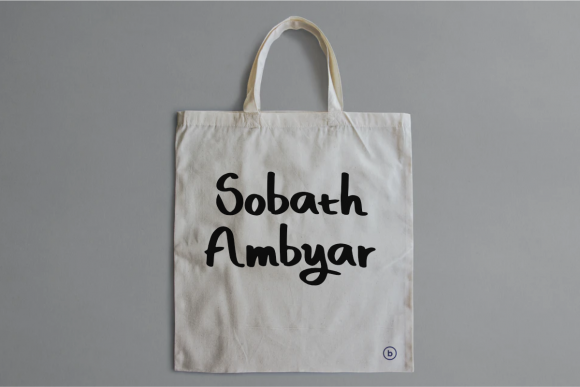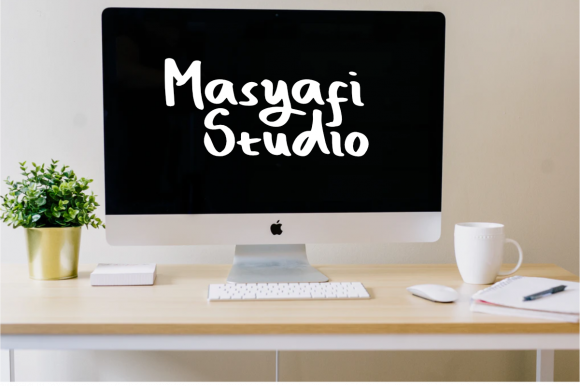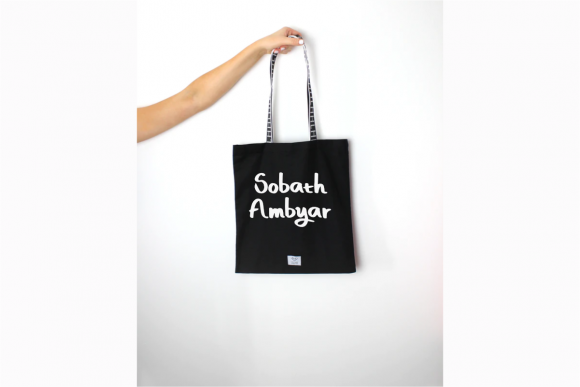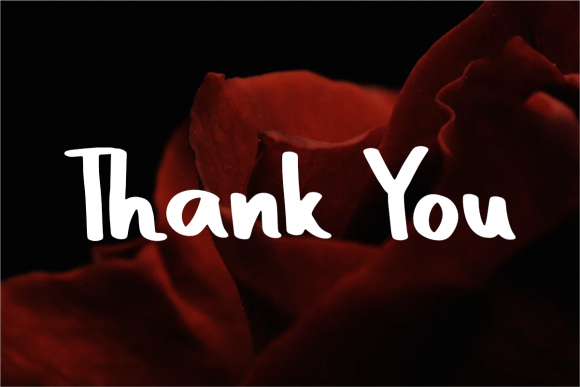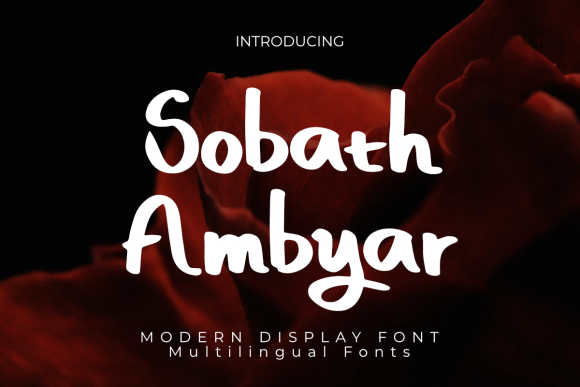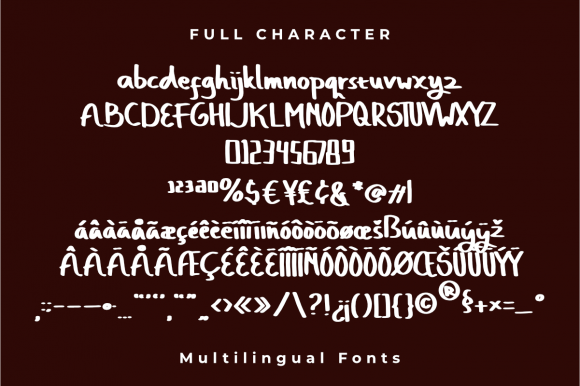
About Sobath Ambyar Font
Sobath Ambyar is a whimsical script font with a relaxed theme, featuring a lovely style. No matter the topic, this font will be an incredibly asset to your fonts’ library, as it has the potential to elevate any creation.